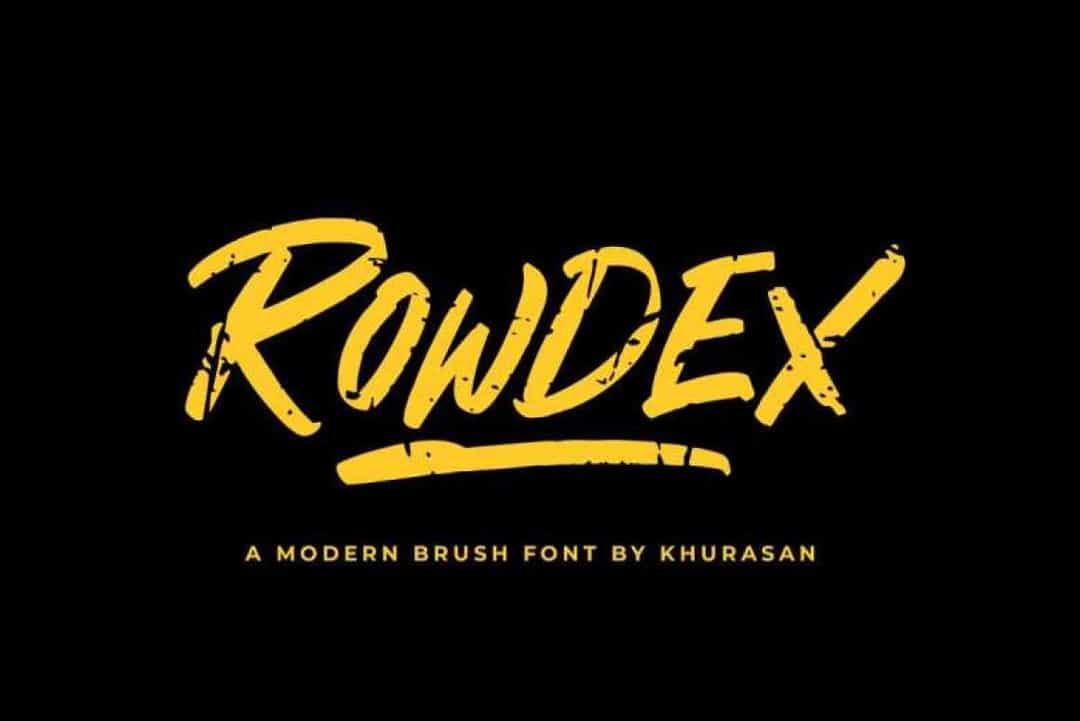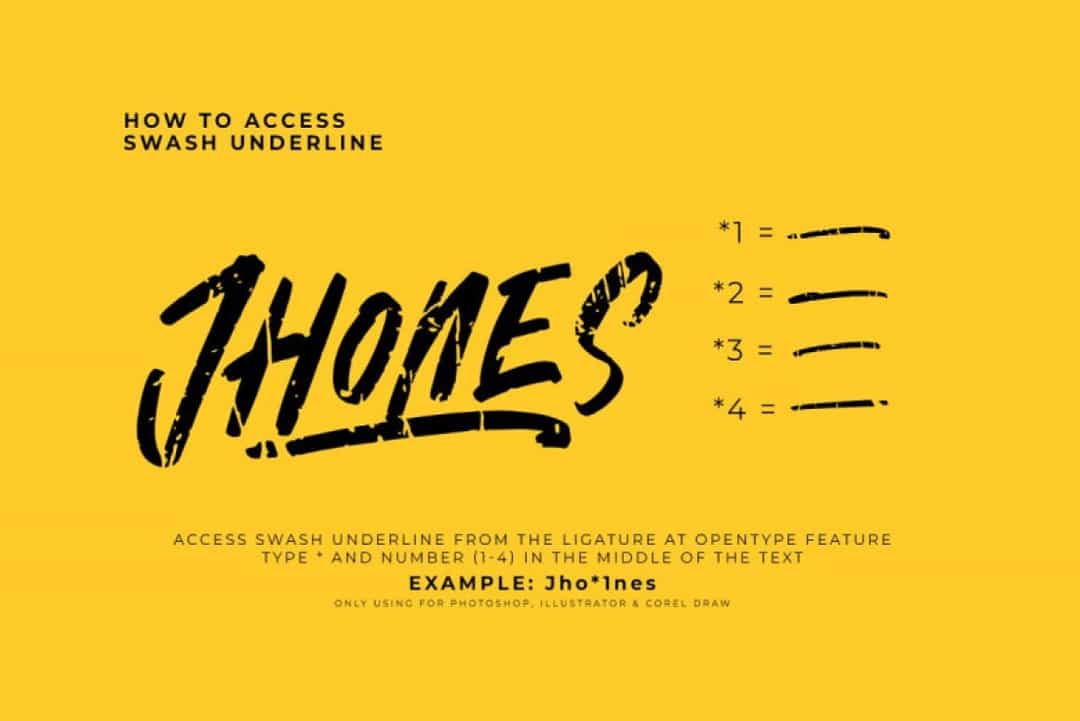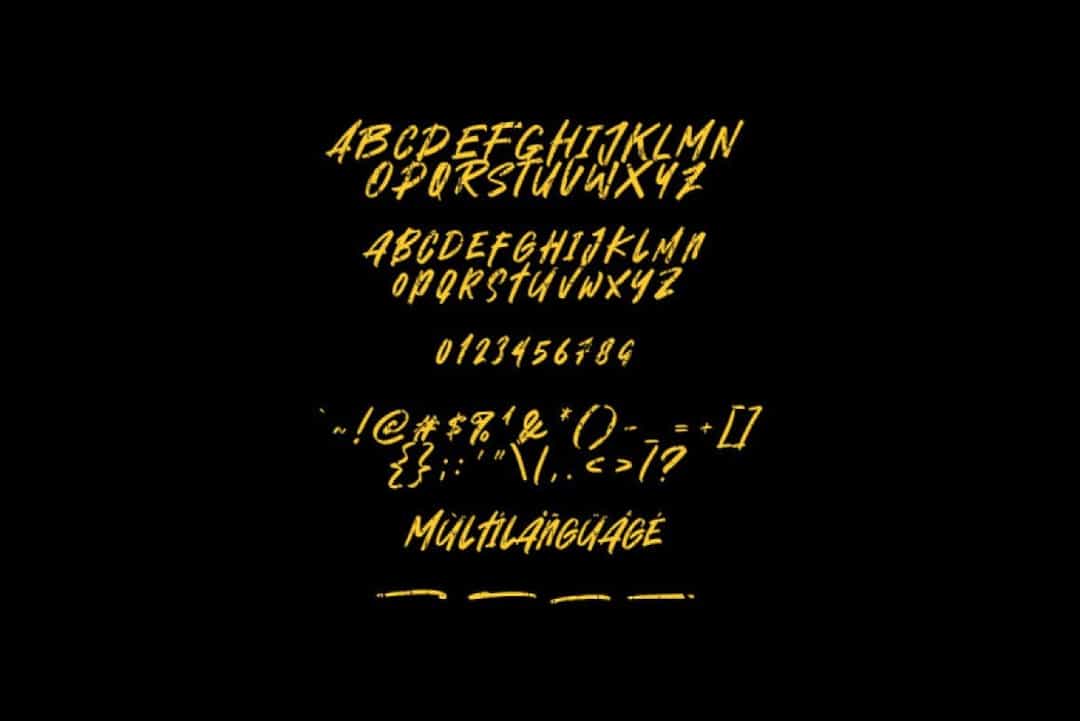
Rowdex is a modern, bold brush typeface suitable for logos, posters, books, magazines books banners book covers and other creative uses! Take advantage of this fun handwritten font and use it to design beautiful designs!